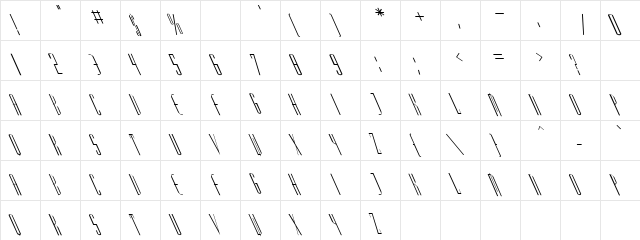
Madrid Lefty Regular
Design Context for Madrid Lefty Typeface
Madrid Lefty is a composed and adaptable typeface that performs quietly and consistently across a wide range of design contexts.